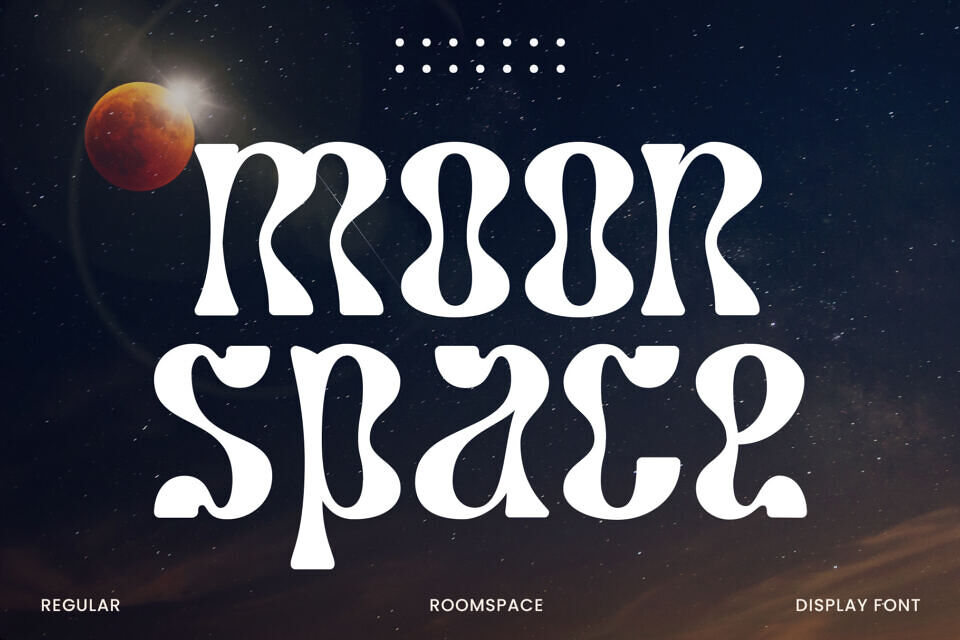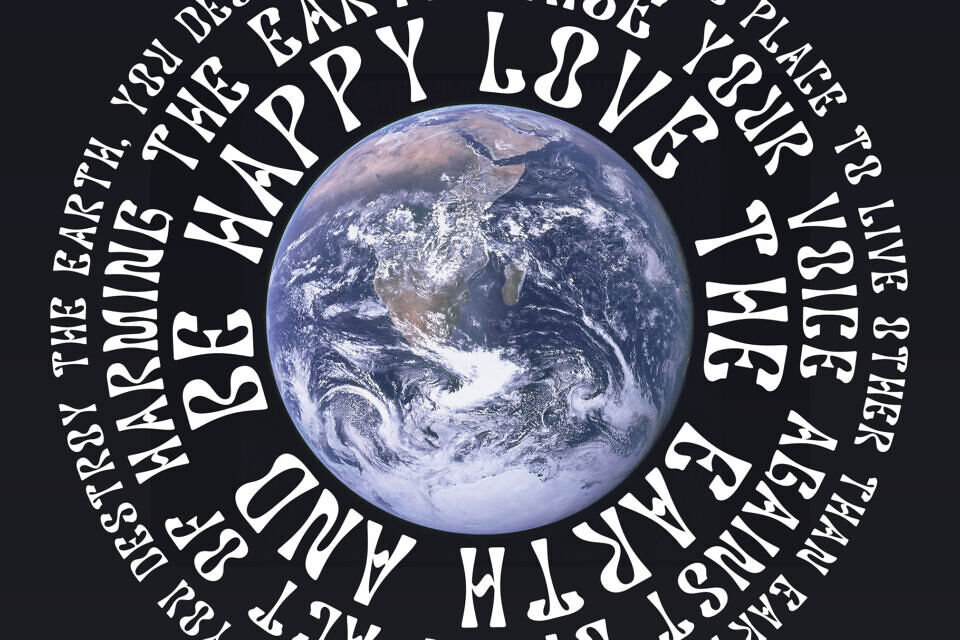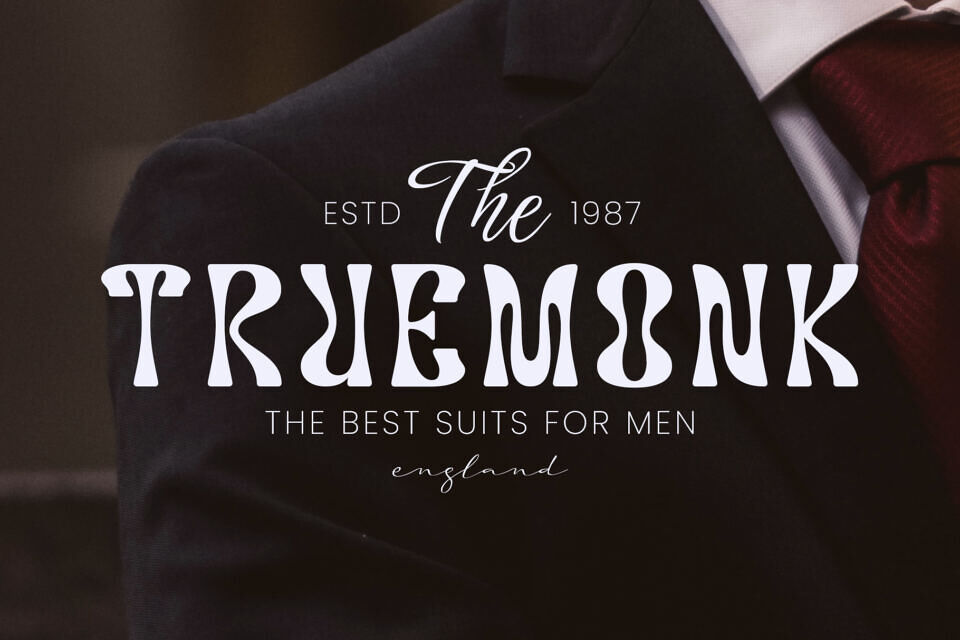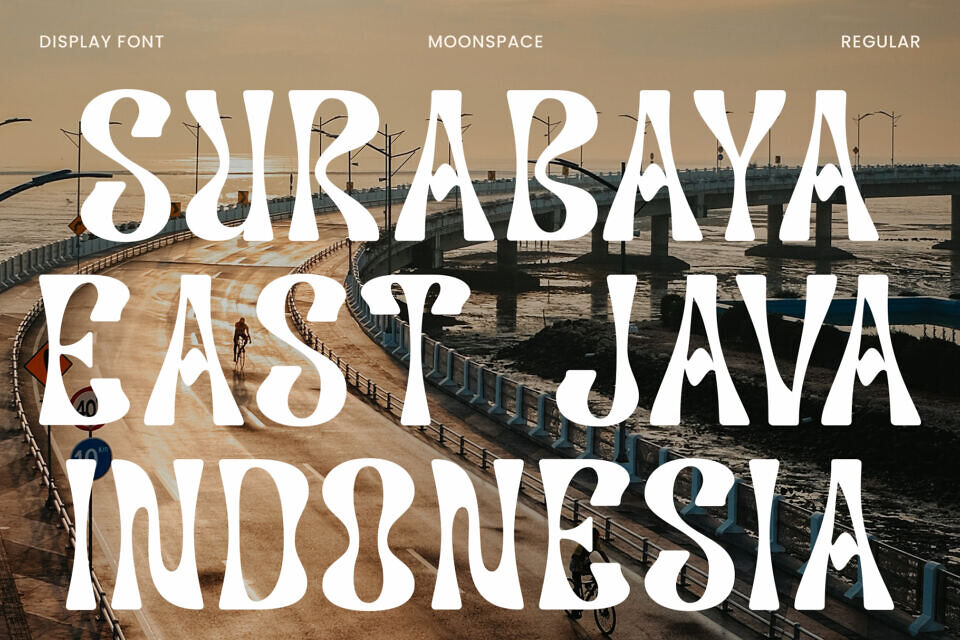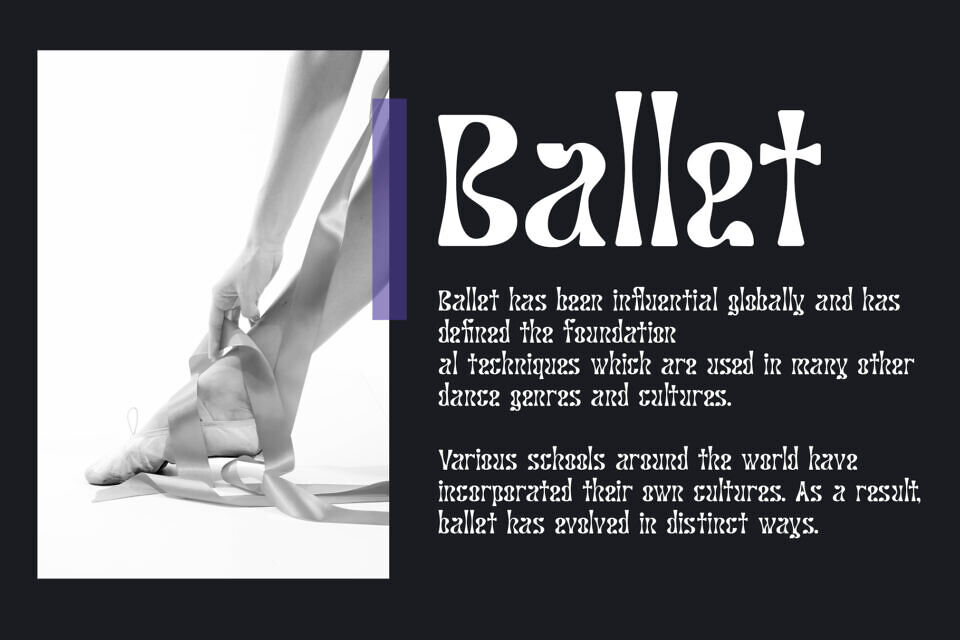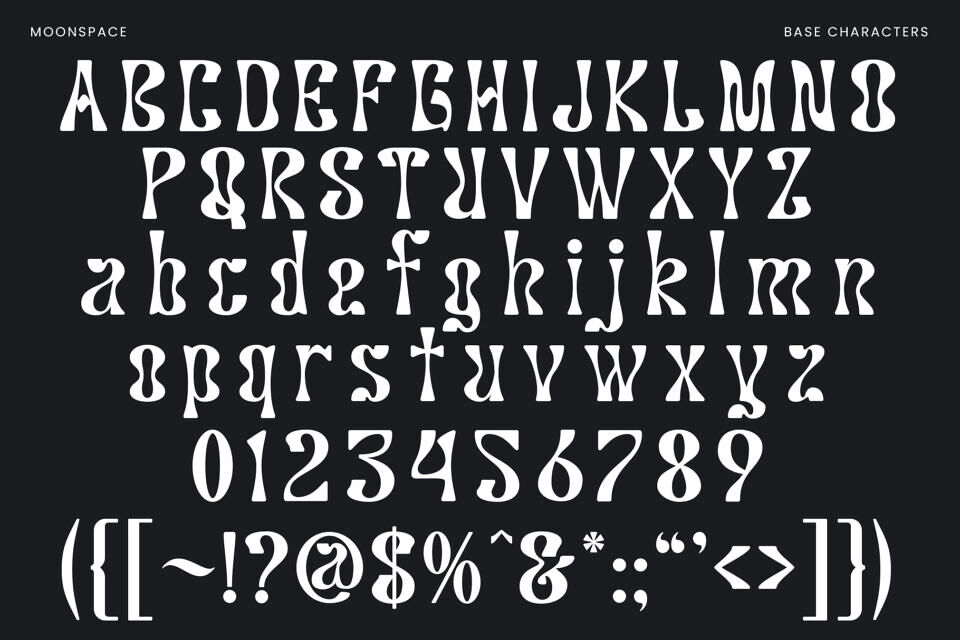
Moonspace is a retro-inspired display font that captures the groovy energy of the 70s with a futuristic twist. Its wavy, bold letterforms evoke a sense of cosmic nostalgia, making it perfect for designs that need both personality and visual rhythm.
The balance between vintage curves and modern proportions gives it a timeless yet experimental appeal. Each character in Moonspace is crafted with attention to flow and form, creating a sense of movement and depth.